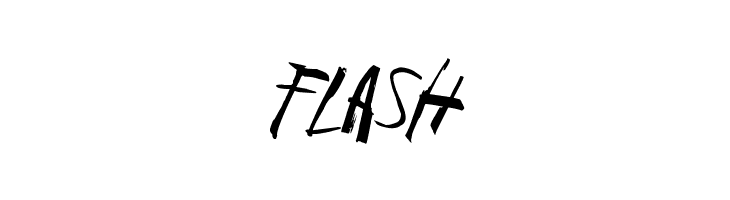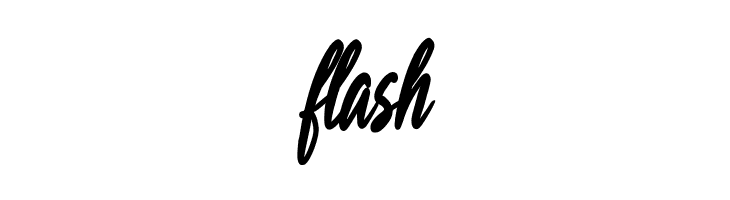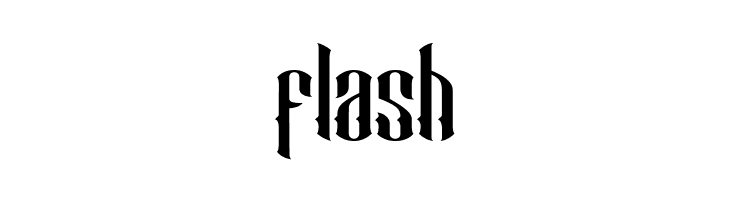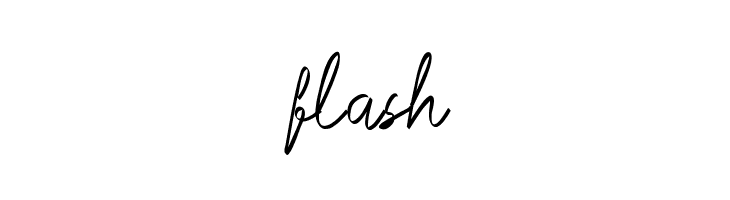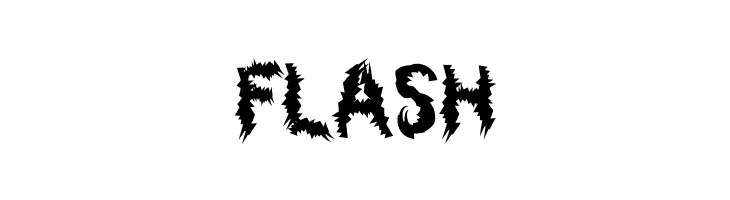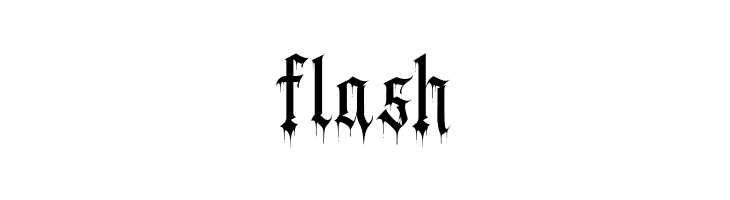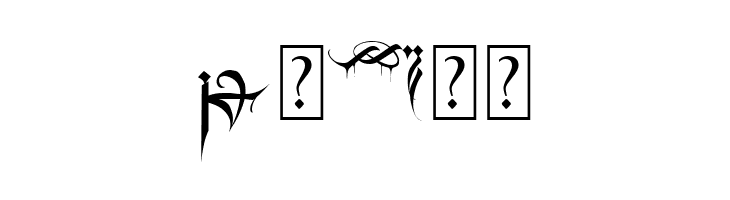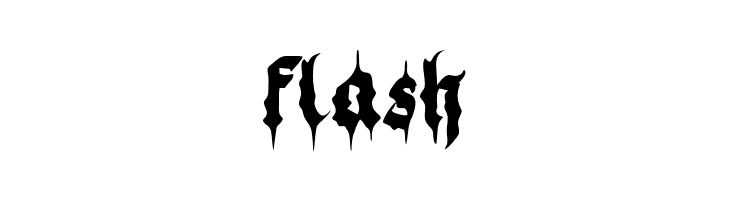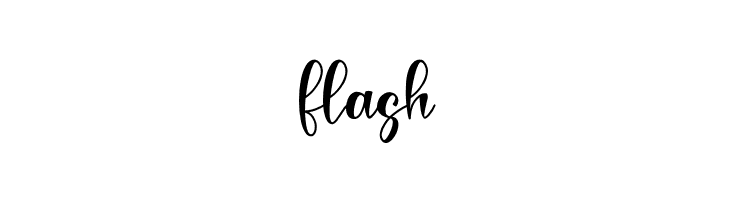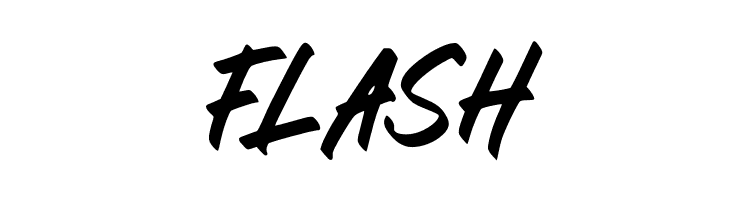
A bold, decorative font with intricate, tattoo-inspired designs.
A bold, hand-drawn font with dynamic, brush-like strokes.
A bold, jagged font with sharp, angular edges for an aggressive look.
A bold, geometric font with a strong, industrial aesthetic.
A gothic, dripping font with sharp edges and a haunting aesthetic.
An intricate, ornamental font with gothic and tribal influences.
A bold, brush script font with an energetic and dynamic style.
A playful, hand-drawn font with a whimsical and friendly style.
A bold, brushstroke font with a dynamic and artistic style.
A bold, expressive brush-style font with a hand-painted appearance.
A bold, brush-style font with dynamic, slanted strokes and a handwritten feel.
A bold, hand-painted style font with expressive, brush-like strokes.
A bold blackletter font with sharp, angular lines and intricate detailing.
A bold, rough-textured font with a hand-drawn, vintage feel.
A bold and intricate blackletter font with a medieval aesthetic.
A bold, gothic-style blackletter font with sharp, angular lines.
( Font by Gianluca Aiello )
A bold, geometric font with a futuristic and modern aesthetic.
A graceful, handwritten script font with elegant, flowing strokes.
A playful, handwritten font with a casual and friendly appearance.
A bold, jagged font with an edgy, chaotic design ideal for dramatic themes.
A playful, handwritten font with bold, rounded strokes and a lively appearance.
A playful, handwritten font with bold, rounded characters and a casual style.
A playful, handwritten font with dynamic curves and decorative elements.
A bold, cursive script font with a modern, energetic style.
A bold, rounded font with a strong and friendly appearance.
A bold, gothic font with sharp, thorn-like edges and a dramatic style.
An ornate and decorative font with intricate swirls and flourishes.
A bold, expressive handwritten font with smooth, flowing curves.
A playful, handwritten-style font with bold, consistent strokes.
A bold, playful font with a shadow effect for added depth.
A graceful and elegant script font with a natural, handwritten style.
A bold, brush-style font with dynamic, hand-drawn characters.
A bold, expressive font with a hand-drawn, brush-like style.
A bold, thorny, and intricate decorative font with a gothic and edgy style.
A bold, gothic font with sharp, pointed edges and a medieval aesthetic.